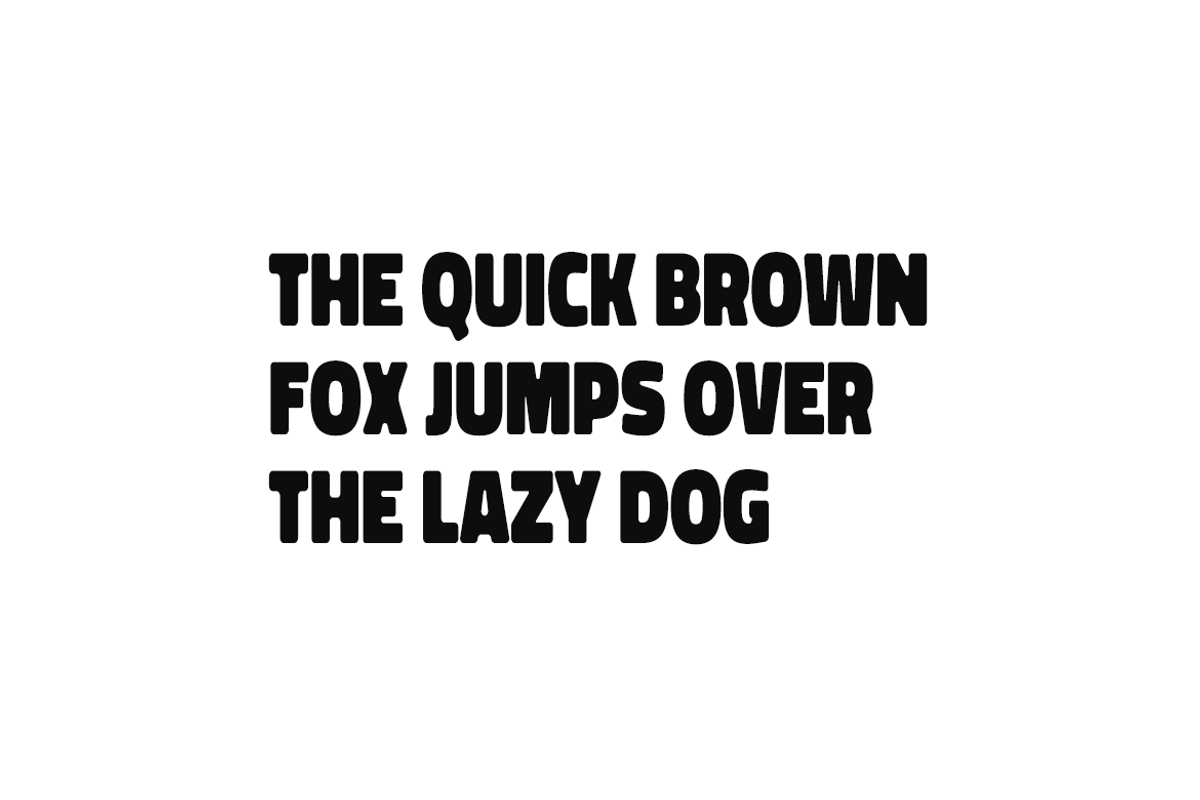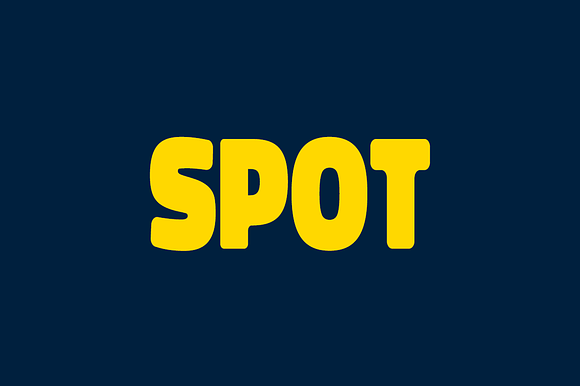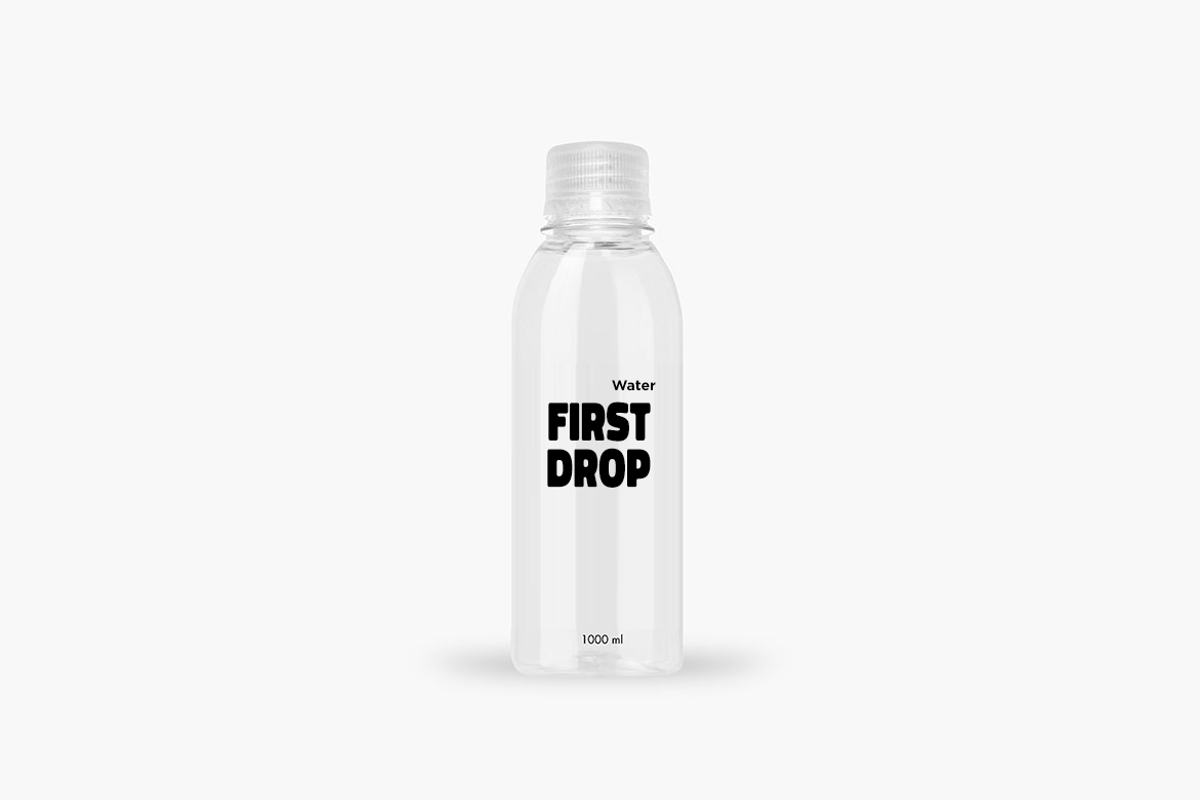
SPOT - Display / Headline Typeface
SPOT is a unique and modern all-caps typeface for headlines, big text, branding, logotypes & display usage. This font is also perfect for creating outstanding logos, promotional content and marketing graphics that can really grab attention from your visitors. Please see the examples shown above to get an idea about the capability of this typeface.